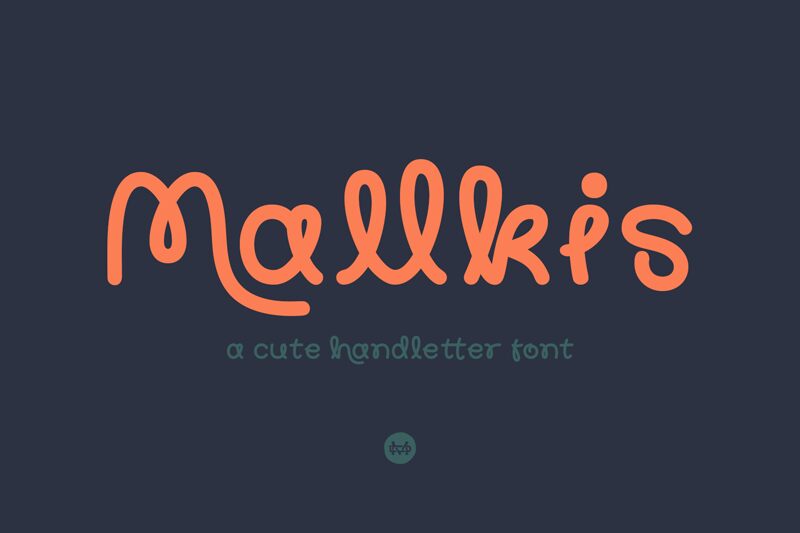
Mallkis Demo Regular
Mallkis is a captivating handwritten font that exudes a raw, organic elegance. Crafted by the talented designer madeDeduk, this font's distinctive cursive strokes and fluid letter forms evoke a sense of effortless artistry and personalized expression.
The font's natural, brushstroke-inspired aesthetic lends itself beautifully to a wide range of design applications, from editorial layouts and branding materials to invitations and product packaging. Its versatility allows designers to infuse projects with a touch of handcrafted charm, creating a warm, inviting atmosphere that resonates with audiences.